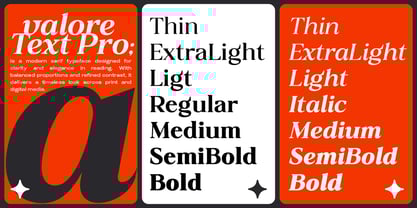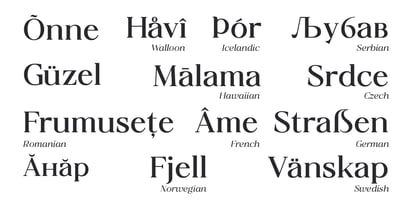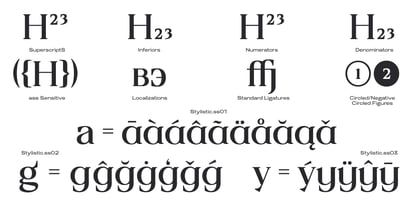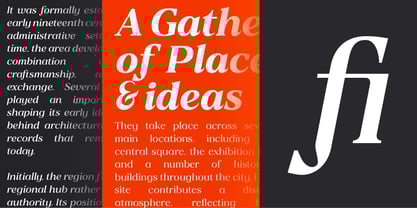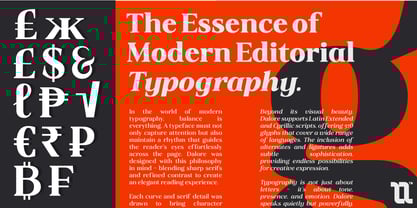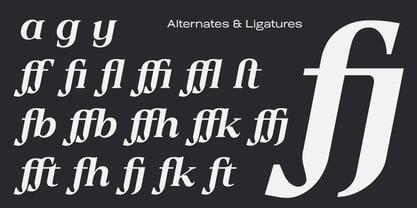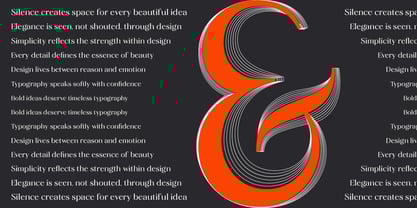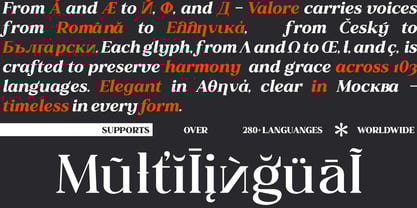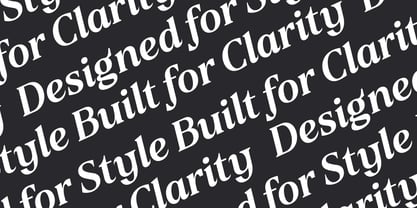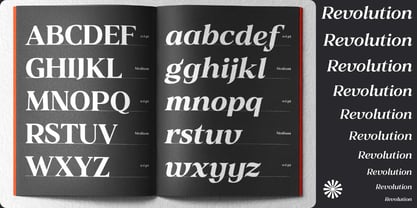
Valore Text Pro
by Nollev
The Valore Text Pro Font Family was designed by Akhmad Hidayat and published by Nollev. Valore Text Pro contains 16 styles and family package options.
Valore Text Pro is a modern serif typeface designed for editorial use with a strong and elegant character. Built with balanced contrast and refined details, it delivers clarity for long reading and sophistication for headlines. Featuring 14 styles from Thin to Bold with matching Italics, Valore Text Pro adapts beautifully across layouts—from magazines and books to professional branding. Complete with standard symbols and multilingual support, it offers flexibility for both print and digital projects.
Designers: Akhmad Hidayat
Publisher: Nollev
Foundry: Nollev
Design Owner: Nollev